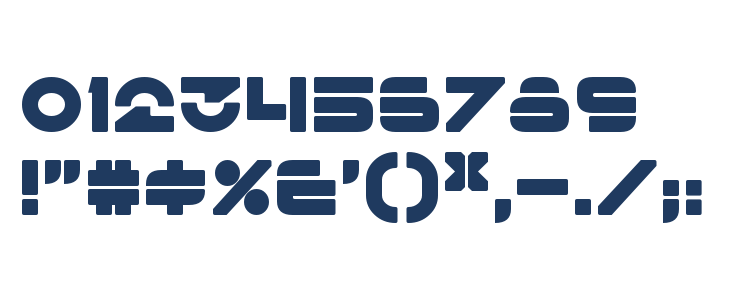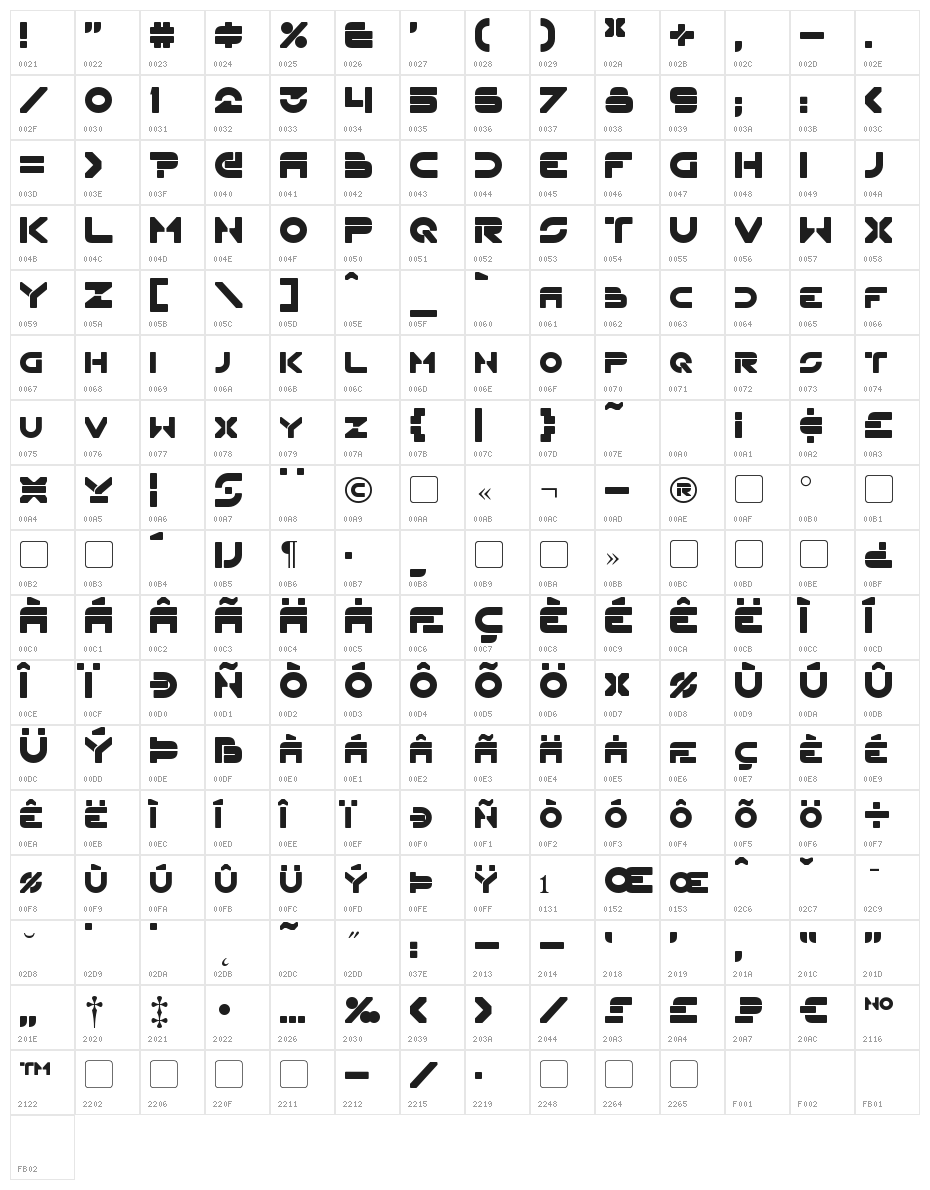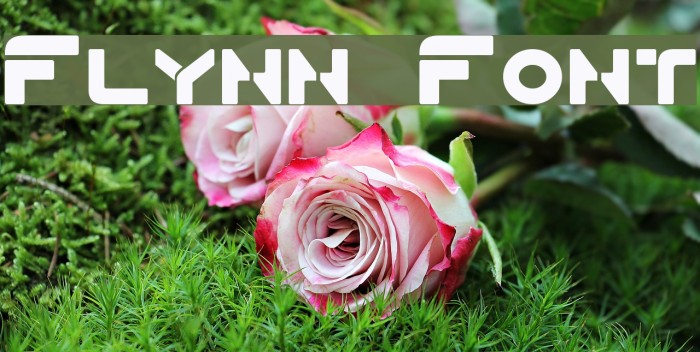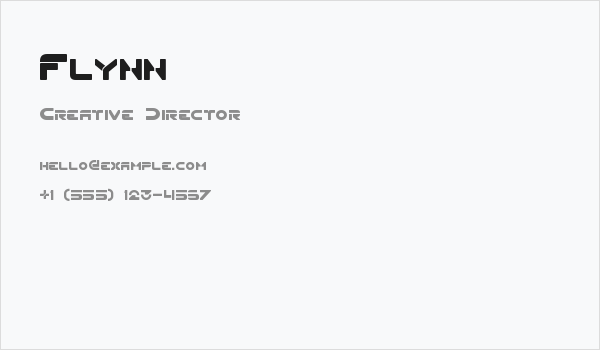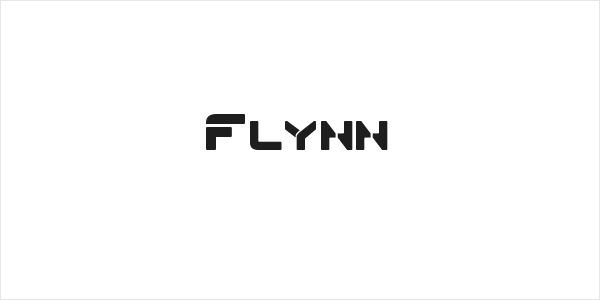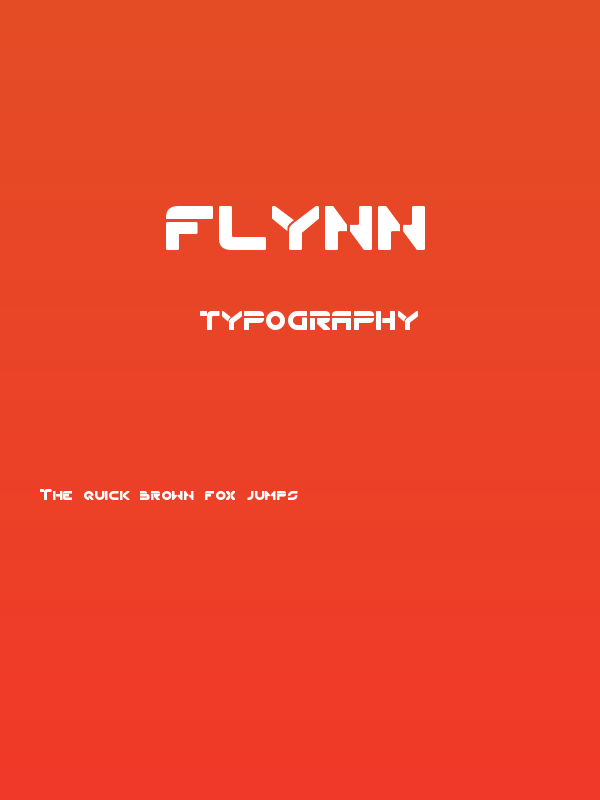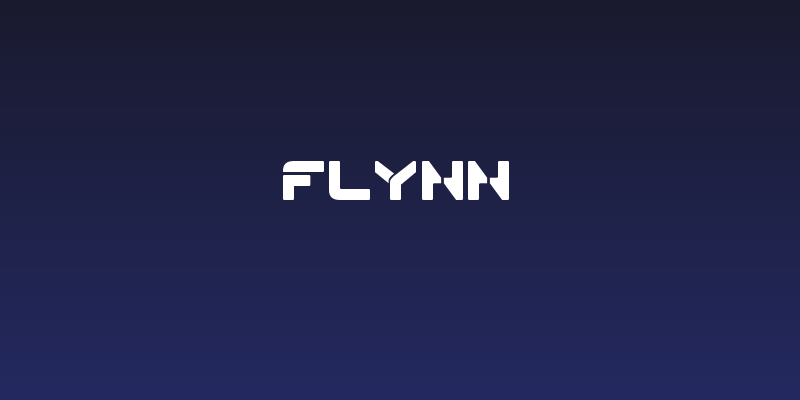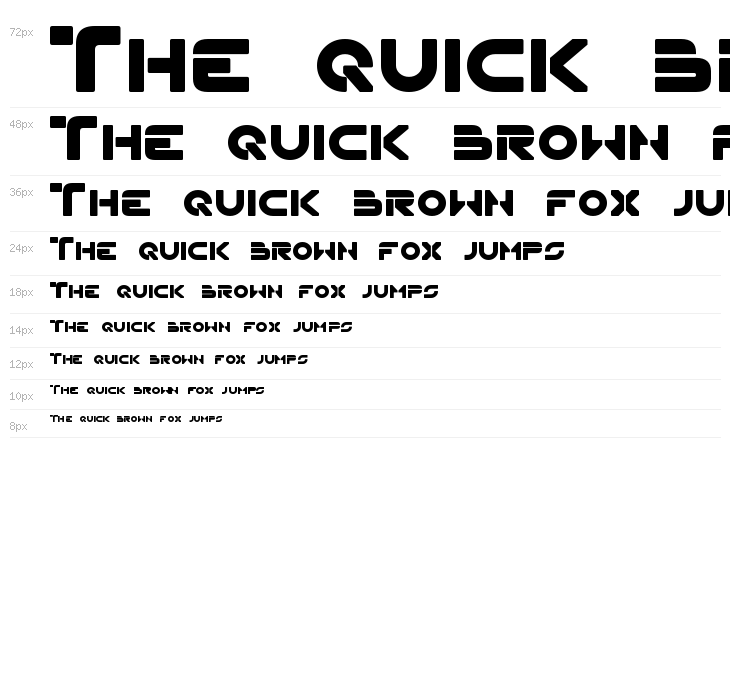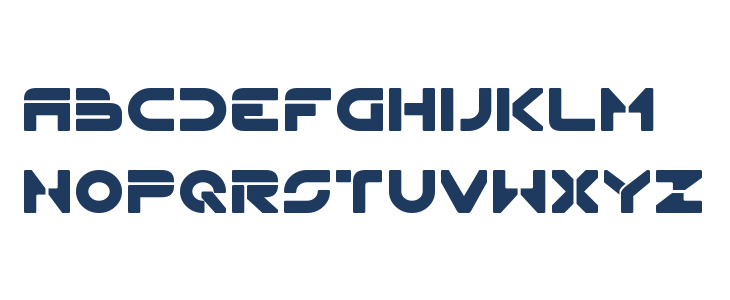
Flynn Font
Flynn Description
This font features a bold, futuristic design with geometric shapes and a strong presence. The characters are constructed with thick, uniform strokes that create a sense of solidity and modernity. The angular cuts and rounded corners give it a unique, tech-inspired look. The uppercase and lowercase letters maintain a consistent style, enhancing readability while still being visually striking. The numerals and special characters follow the same design principles, ensuring a cohesive appearance across all elements. This font is ideal for projects that require a contemporary and bold aesthetic.
FLYNN UPPERCASE
FLYNN LOWERCASE
FLYNN OTHER CHARS